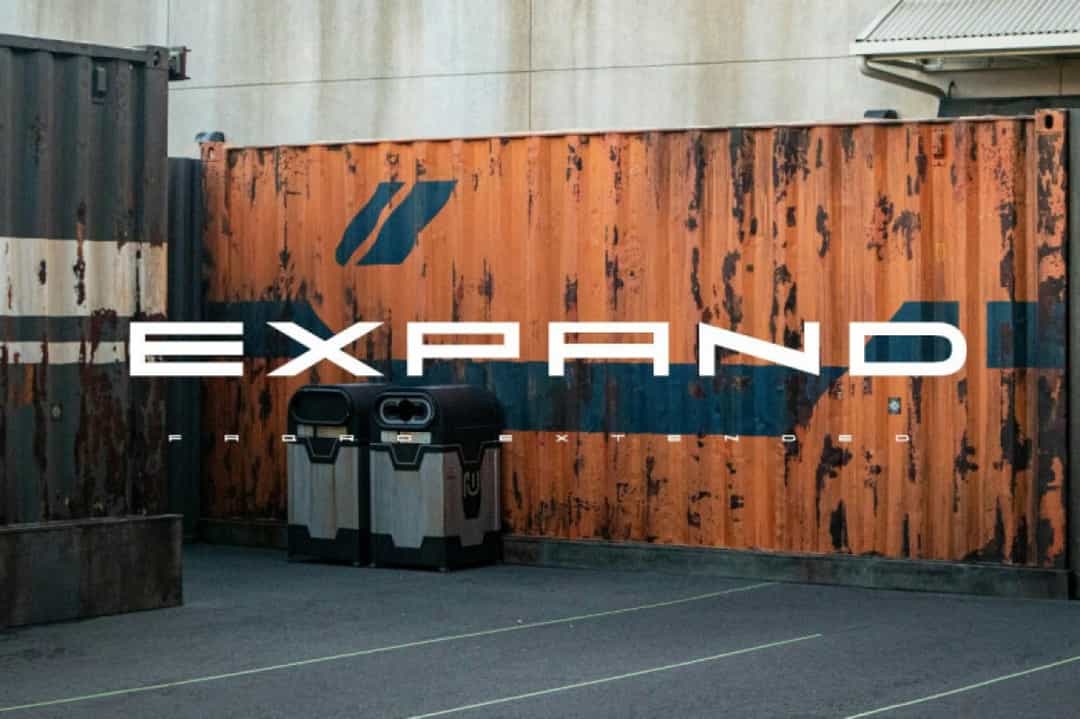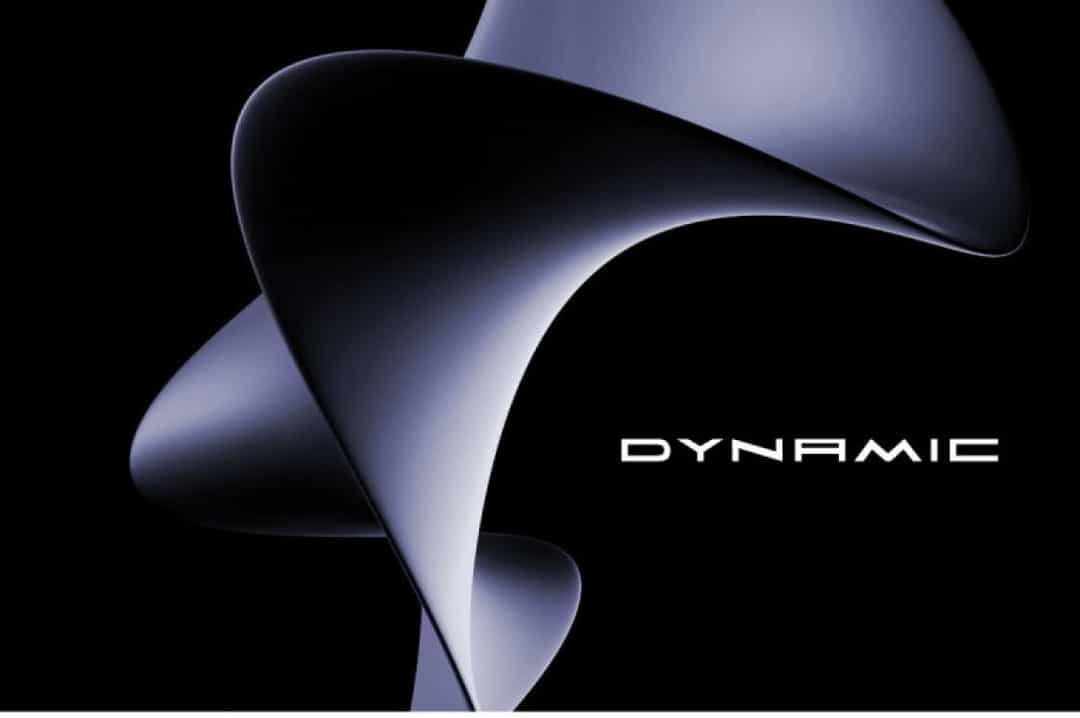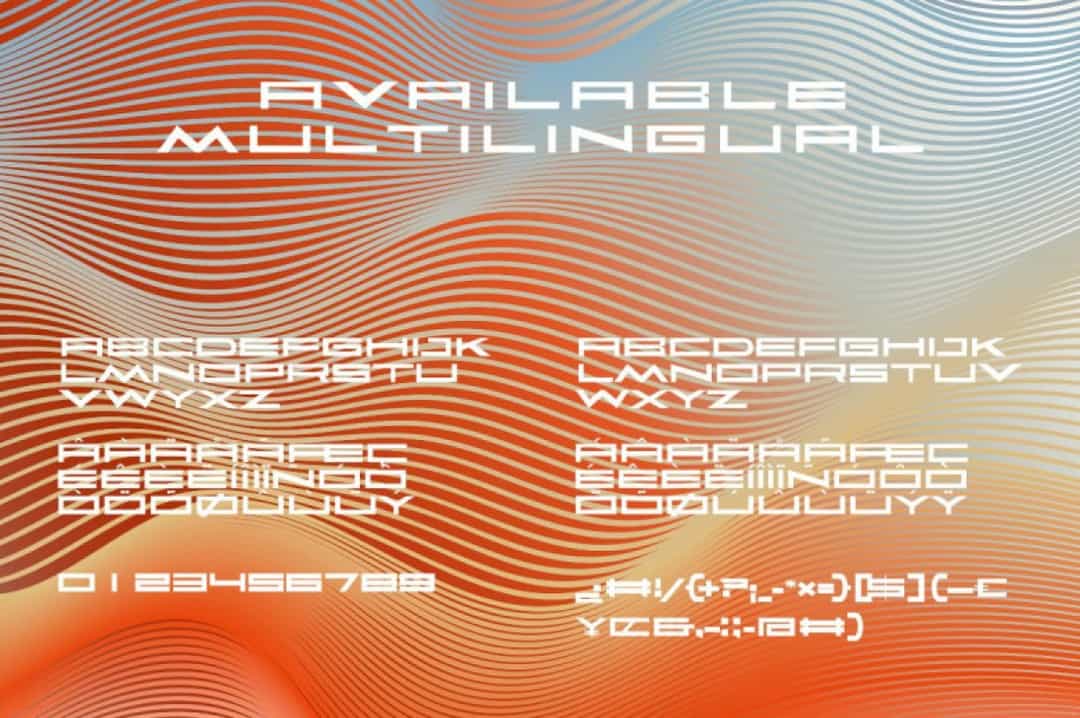
Elegant and sophisticated is how we would describe this elegant sans serif font; not only beautiful in itself but with confident curves and sharp edges that captivate audiences through classic elegance.